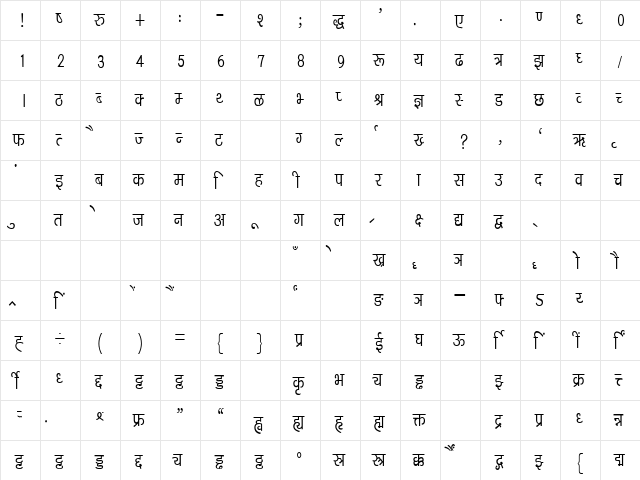
Kruti Dev 040 Condensed Regular
Design Context for Kruti Dev 040 Condensed Typeface
Kruti Dev 040 Condensed is a composed and adaptable typeface that performs quietly and consistently across a wide range of design contexts. The condensed width makes it efficient for tight spaces without sacrificing legibility.